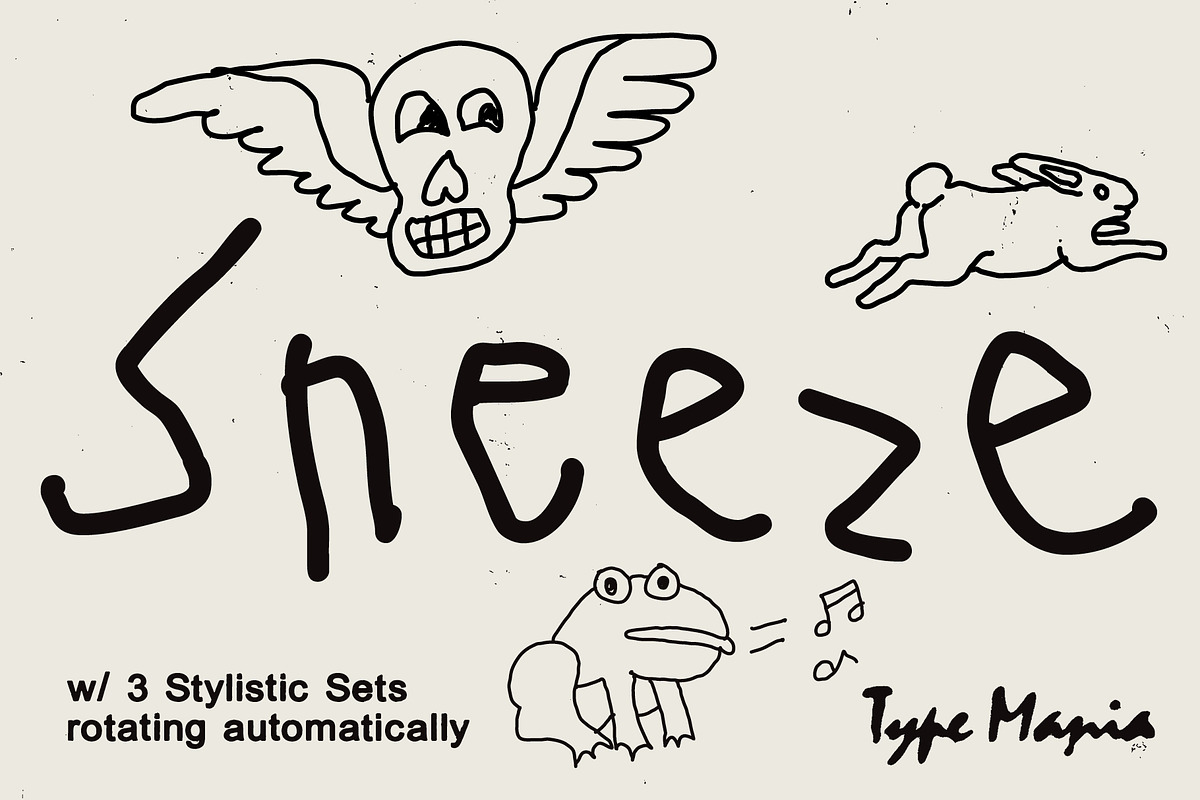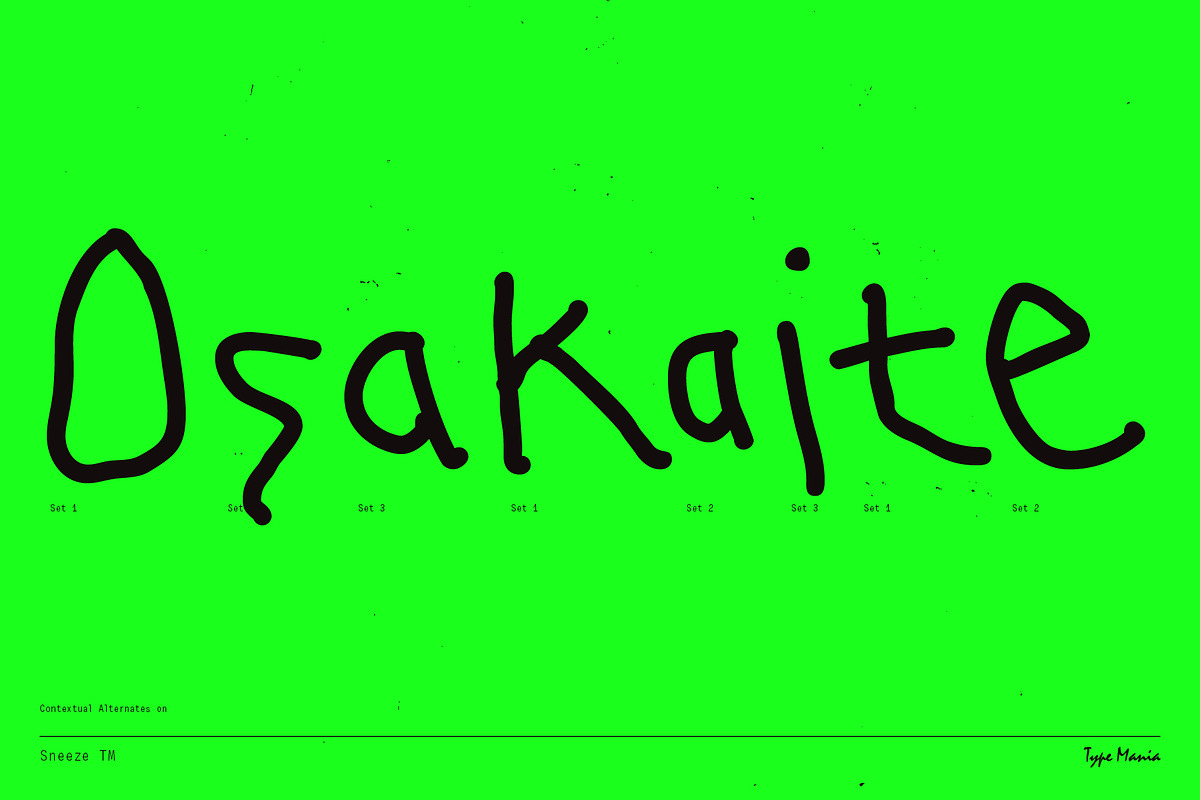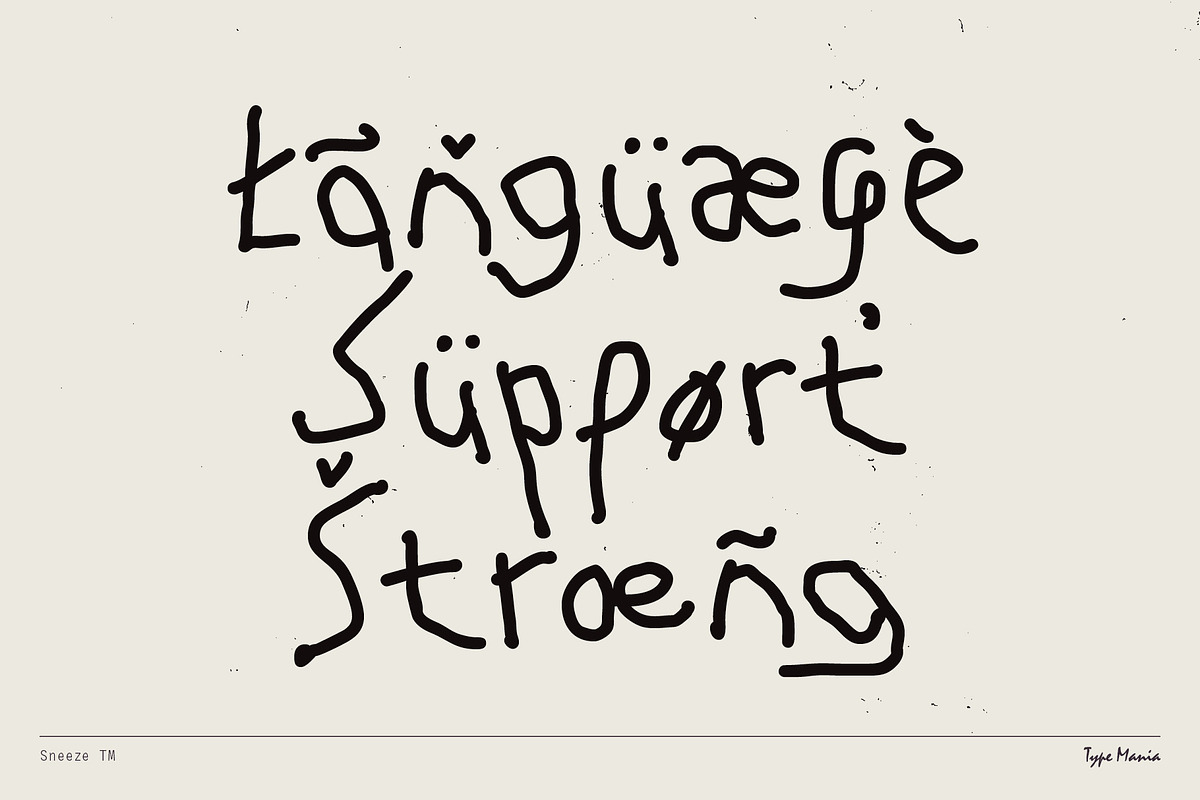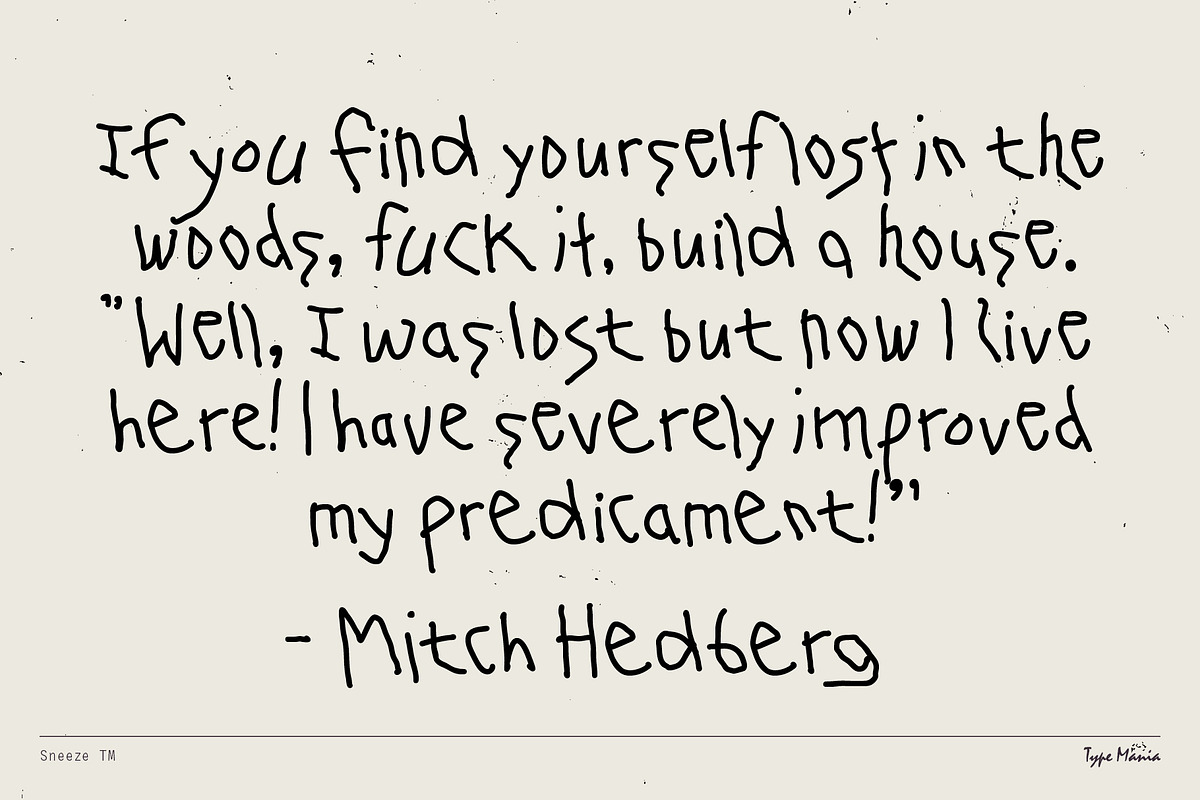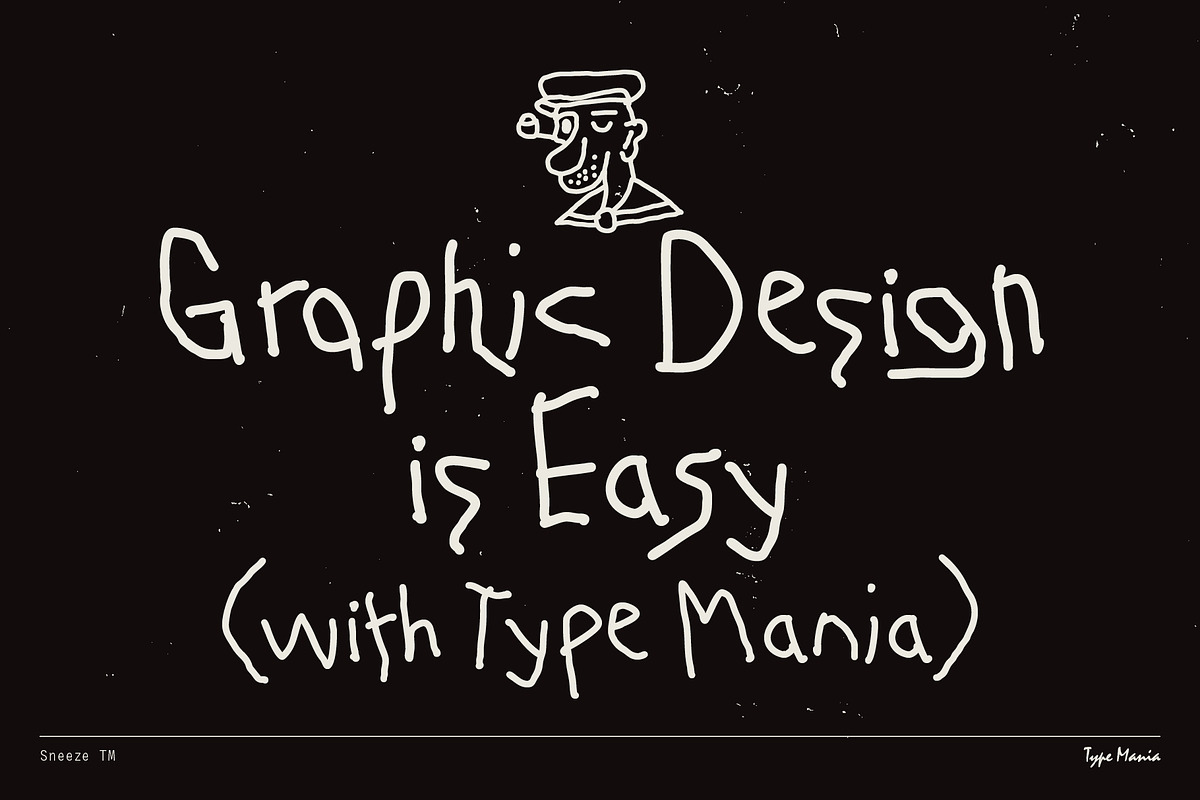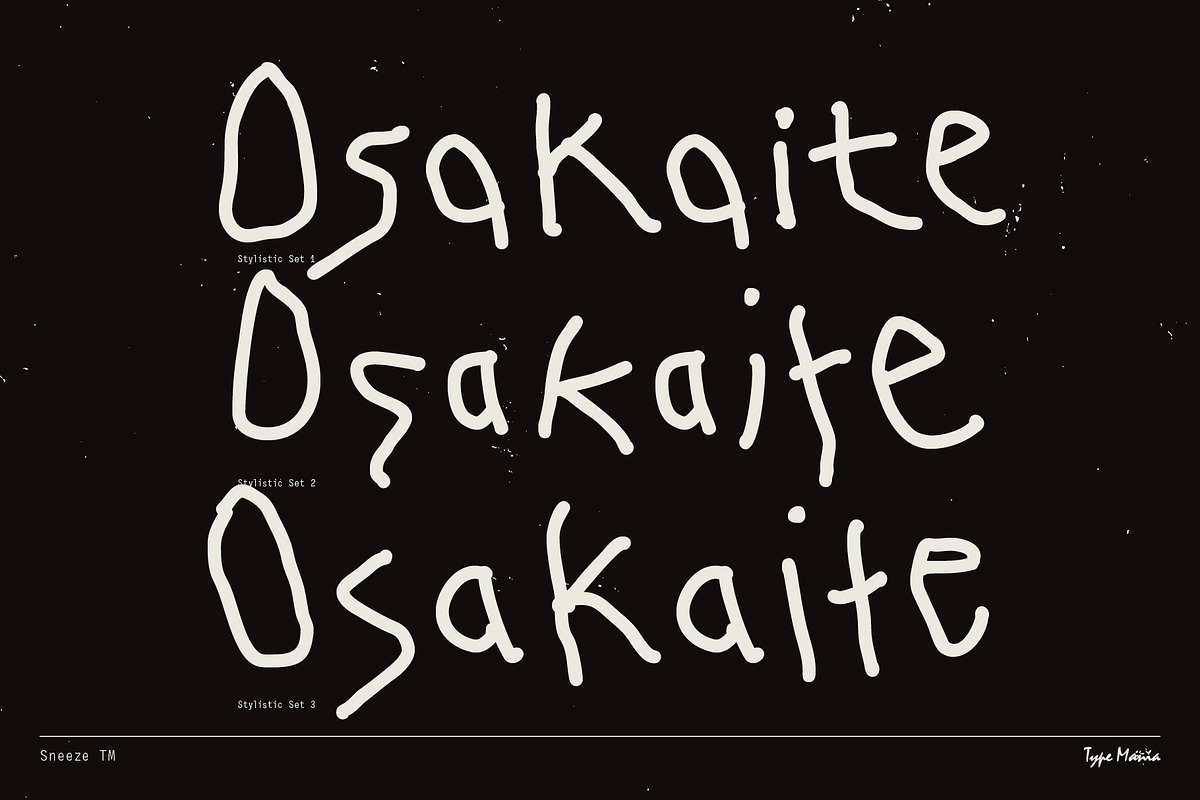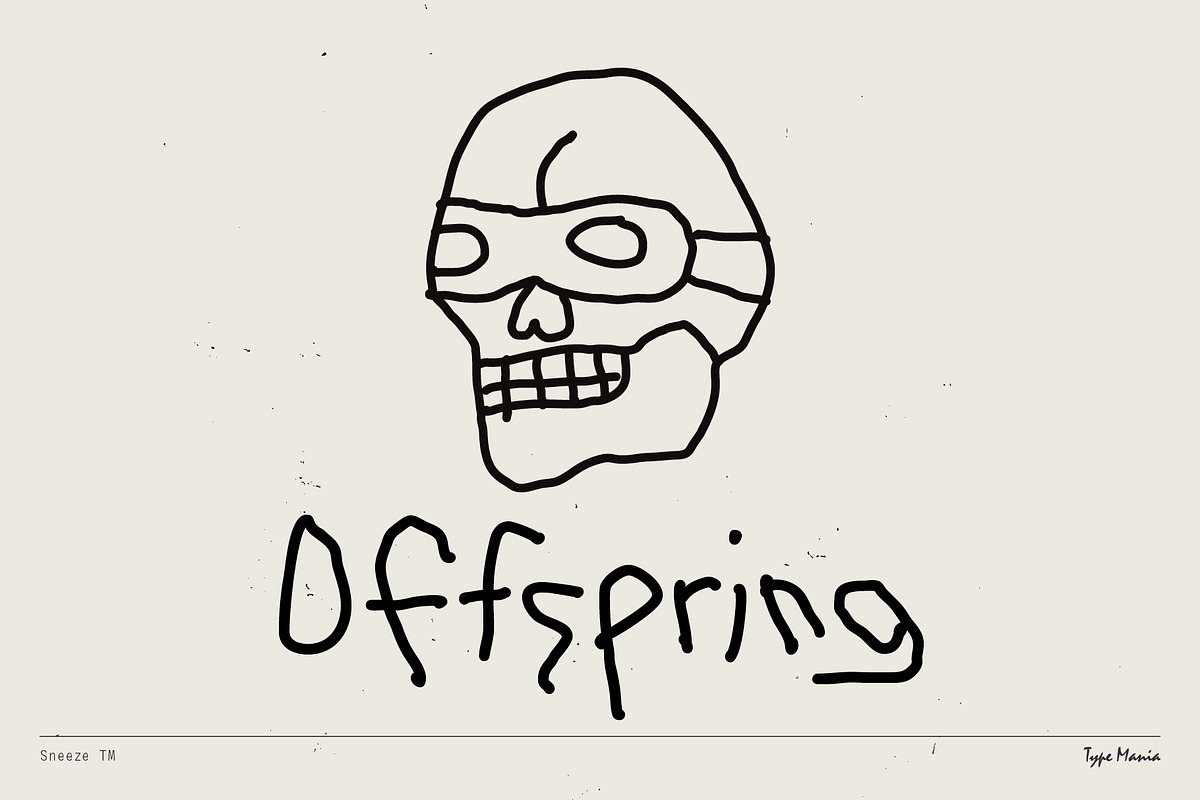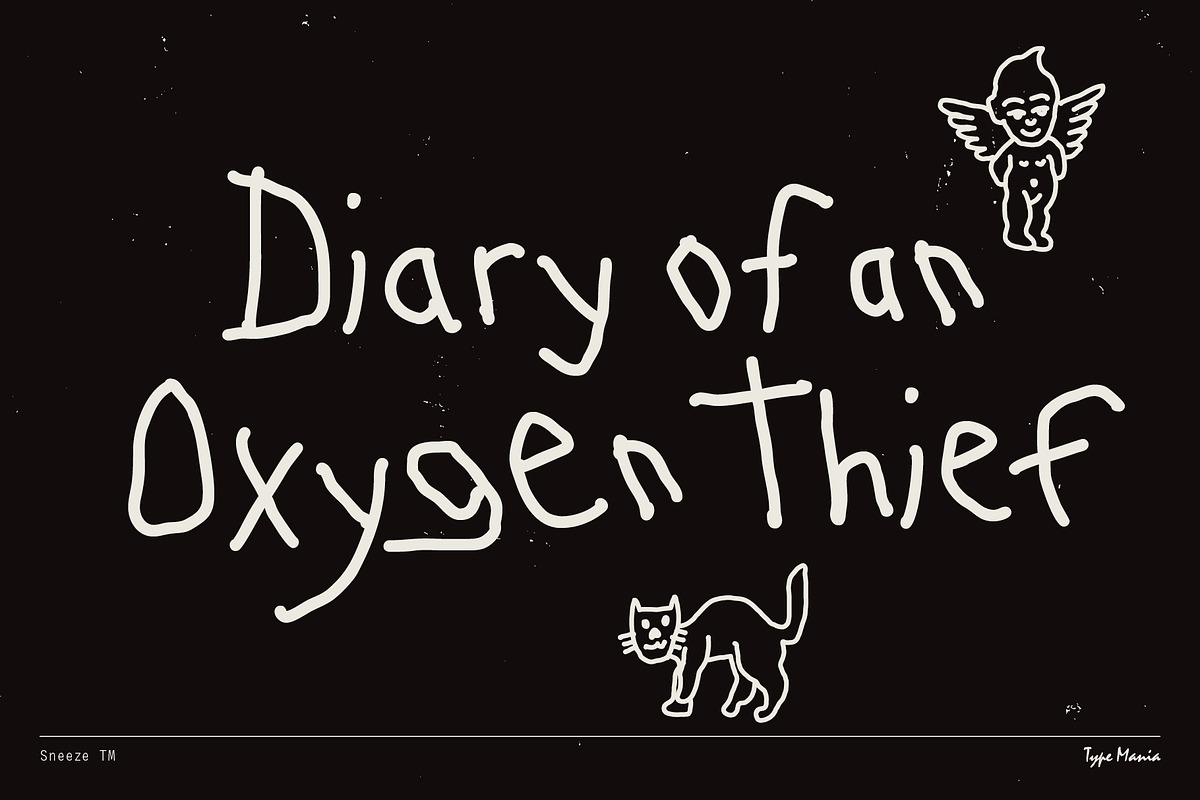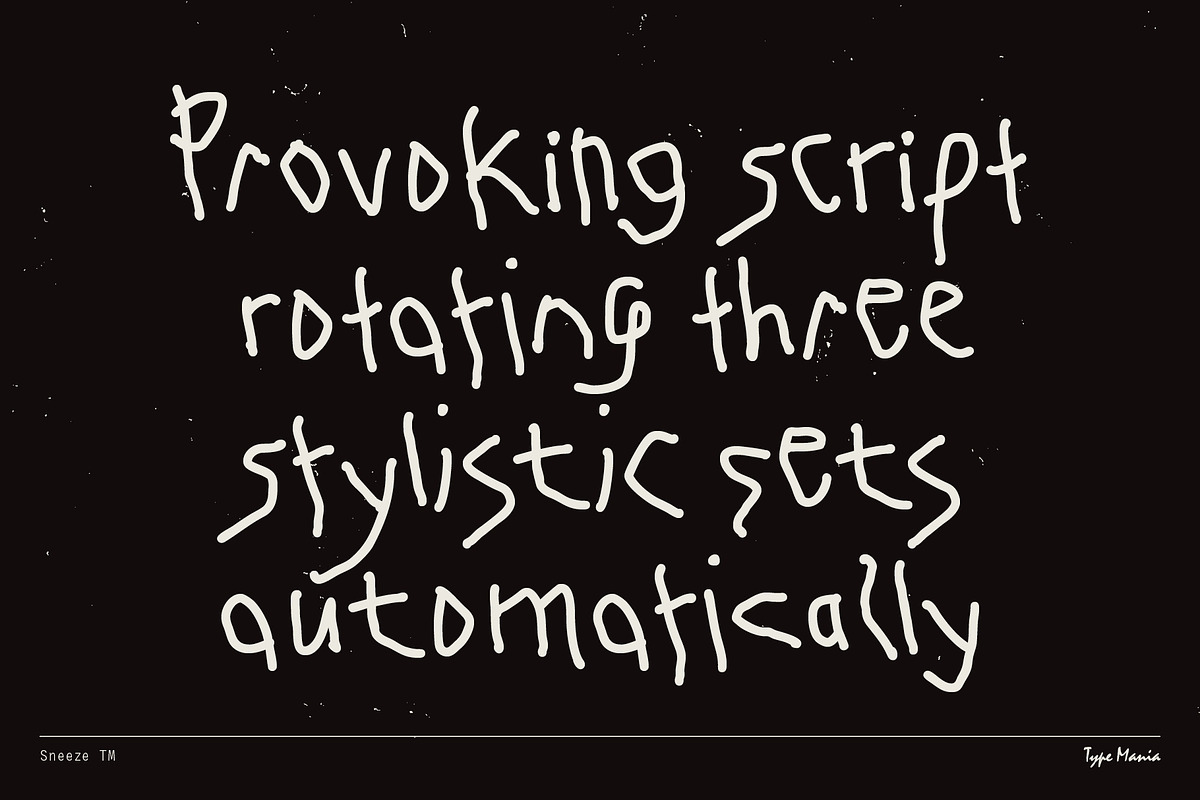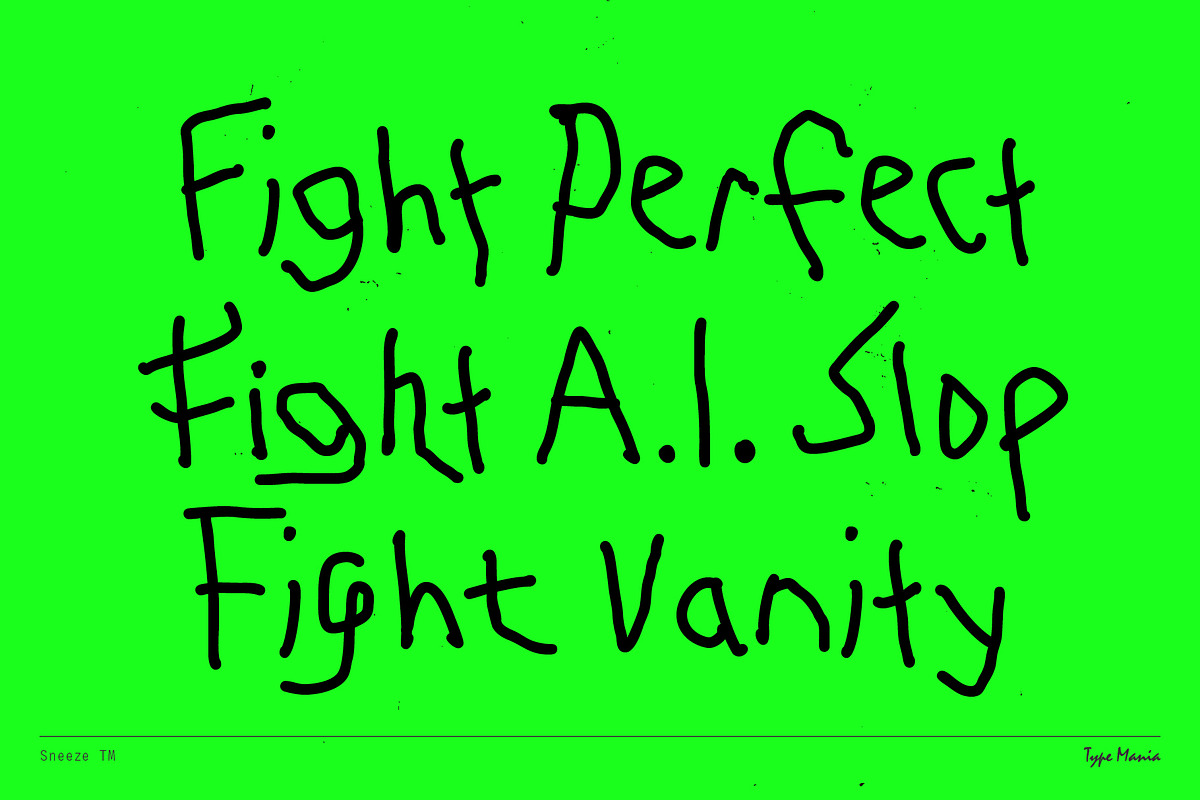
Sneeze TM – True Scribble
Get familiar with Sneeze TM – a rough marker font with no polish. With contextual alternates on, three stylistic sets rotate automatically, giving the text an organic flow. Fight perfect, fight vanity 🤘🤘
OpenType features
- 3 stylistic sets
- The font is programmed to automatically shift between the stylistic sets